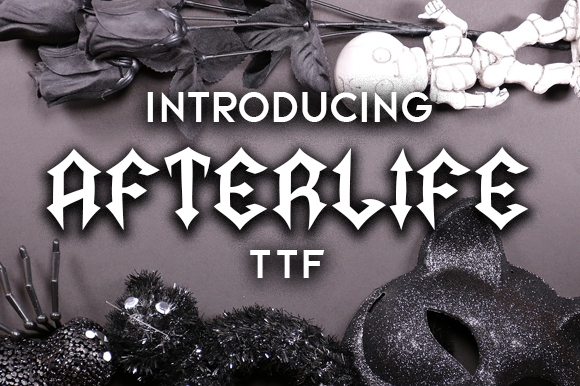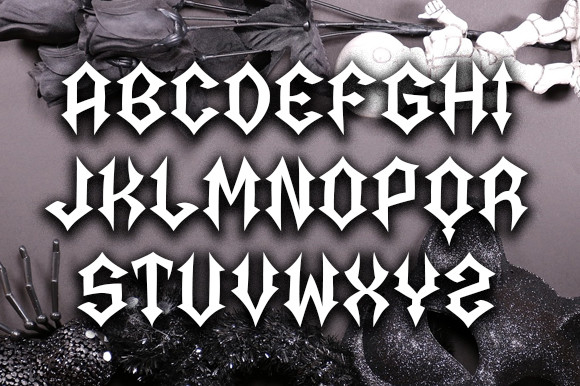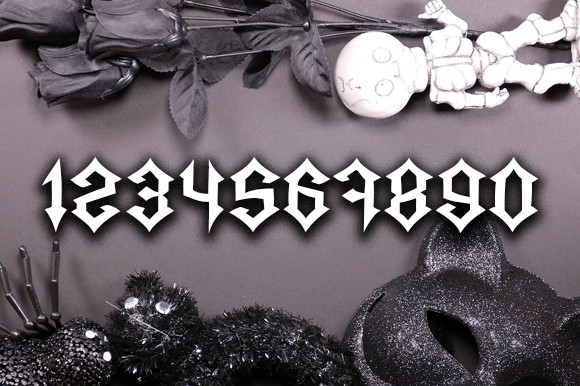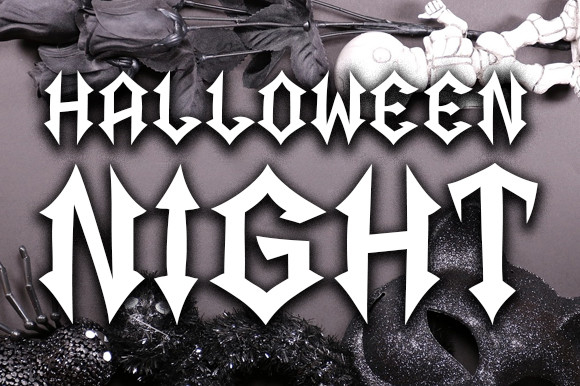
Afterlife Font
About Afterlife Font
Afterlife is an eccentric gothic and blackletter font that will be the perfect addition to any of your designs. Enjoy exploring this wonderful font and add it to your logos, invitations, cards, social media, movie and blook titles, posters and more.